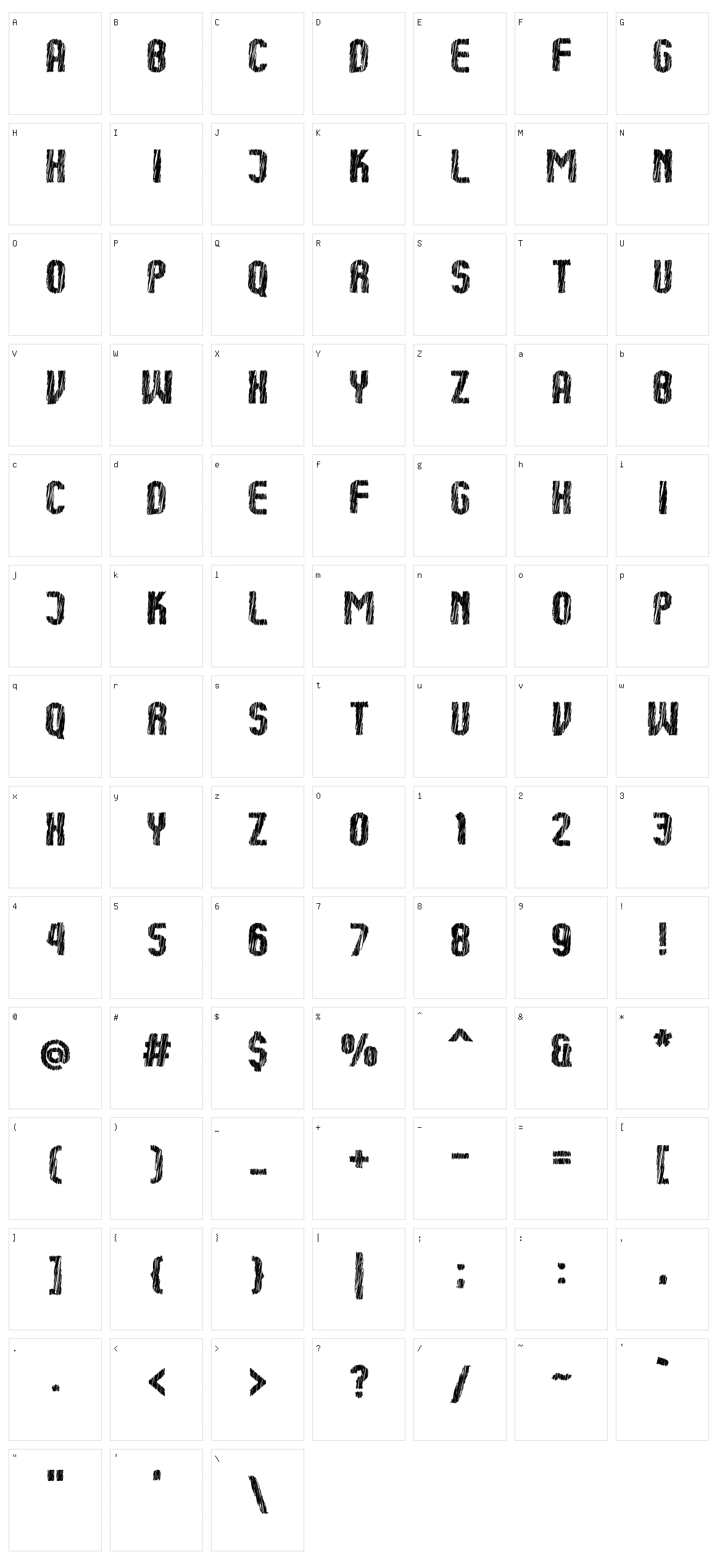
Kumba Sketch is a whimsical display font. It comes packed in 20 amazing and versatile styles. Combine them and give your designs a unique outstanding look! It will elevate a wide range of design projects to the highest level, be it branding, headings, wedding designs, invitations, signatures, logos, labels, and much more!